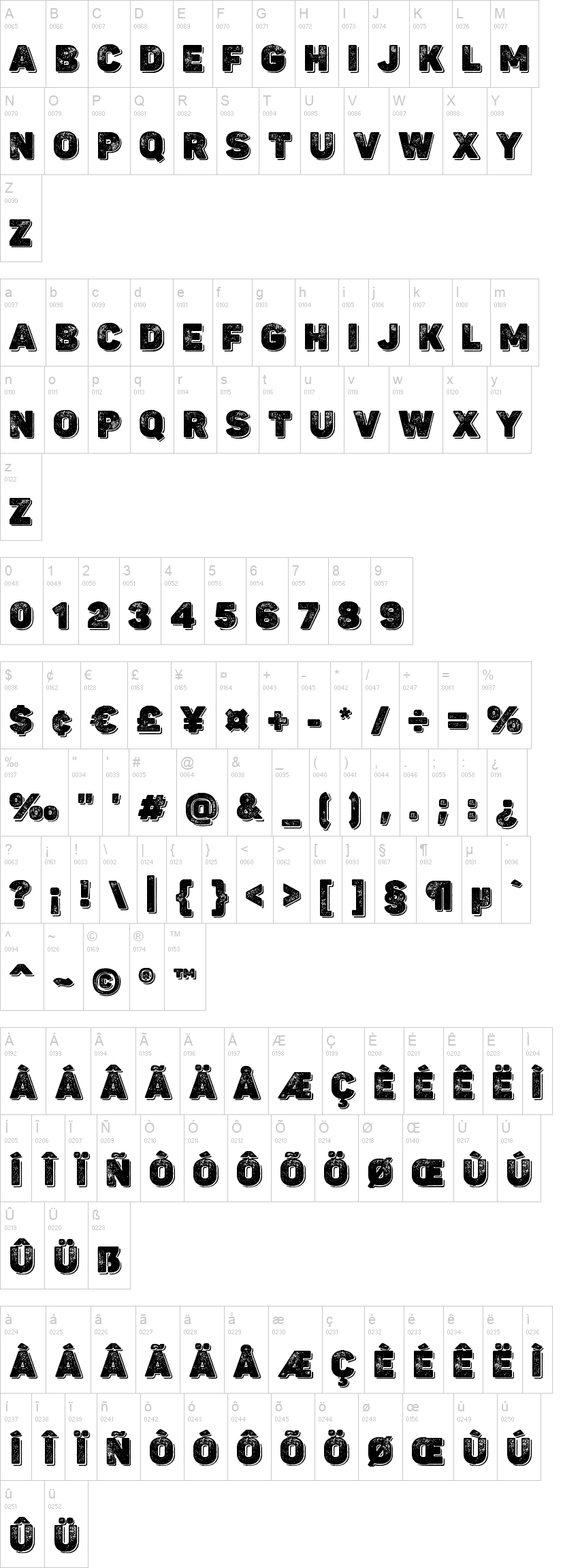
Note of the authorThe Rust Bundle includes Extended Latin and Cyrillic coverage, providing support for more than 130 languages. Fontfabric type designers handcrafted the package to bring an authentic and original vintage type, making it especially suitable for any design that speaks of craftsmanship, a sublime human touch, and a mature signature with undeniable flavor.